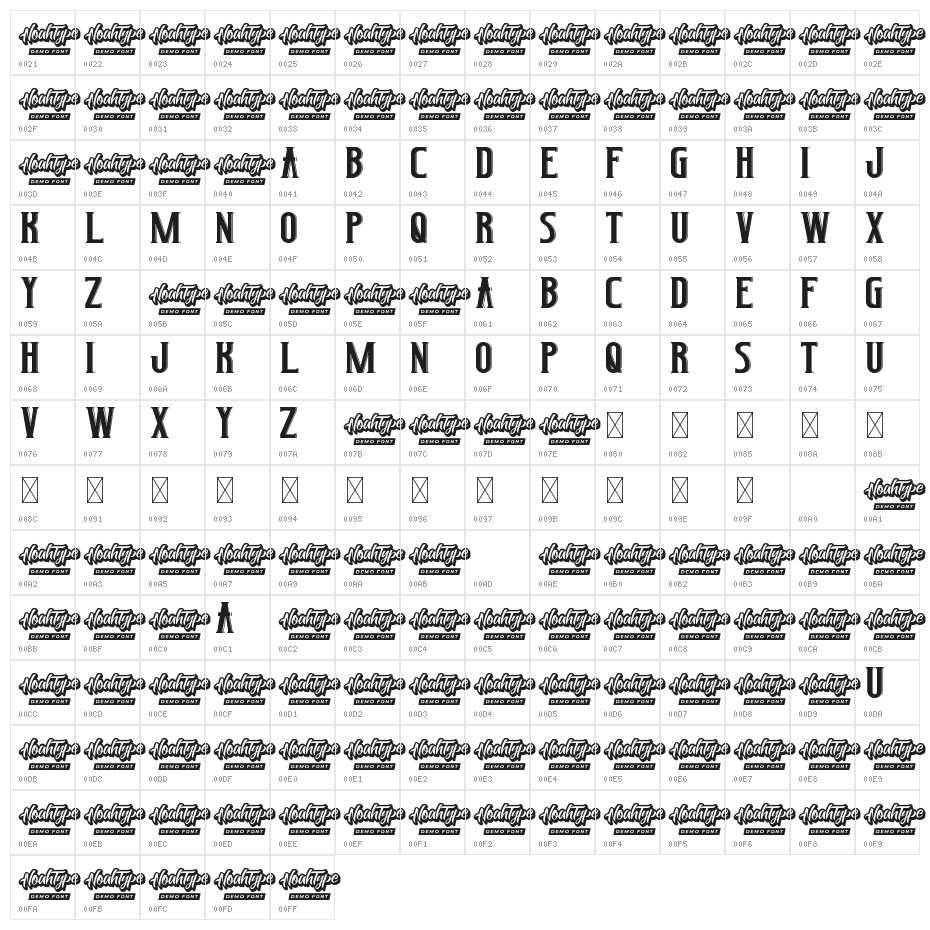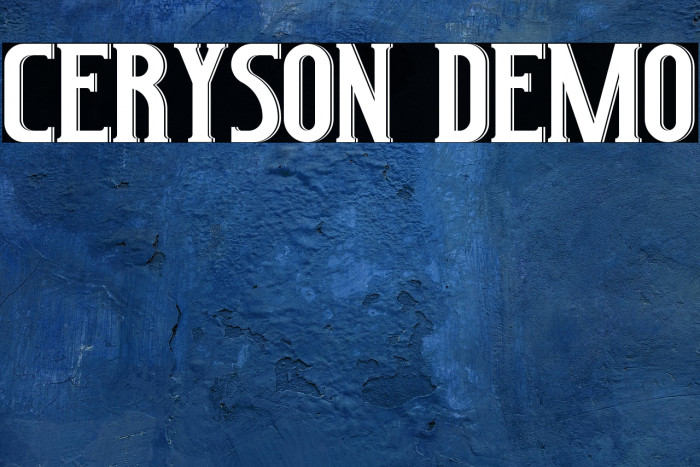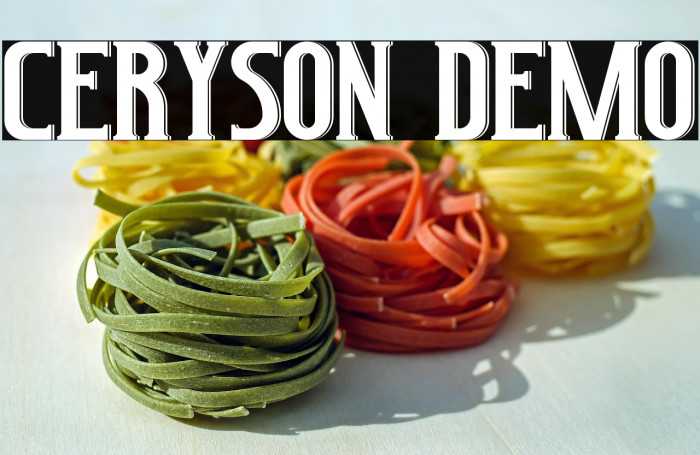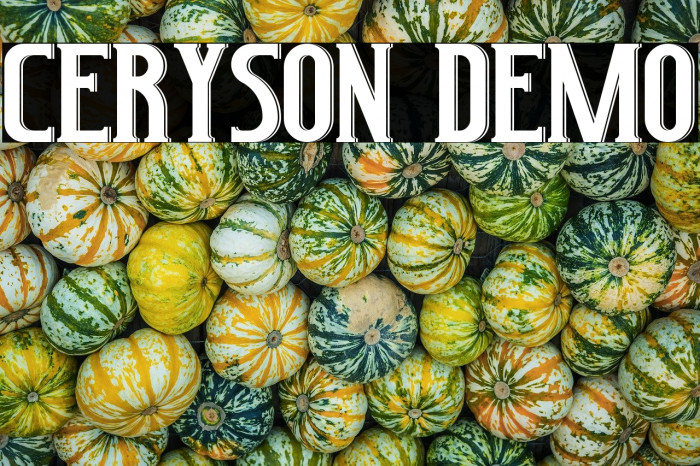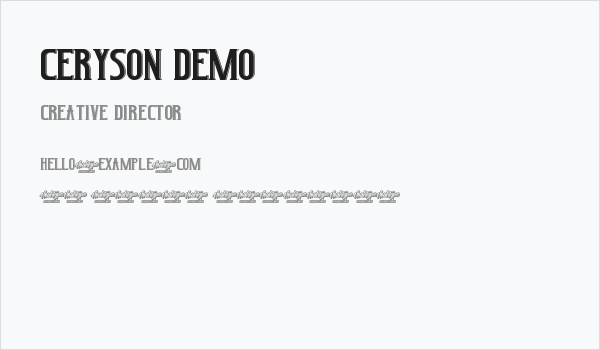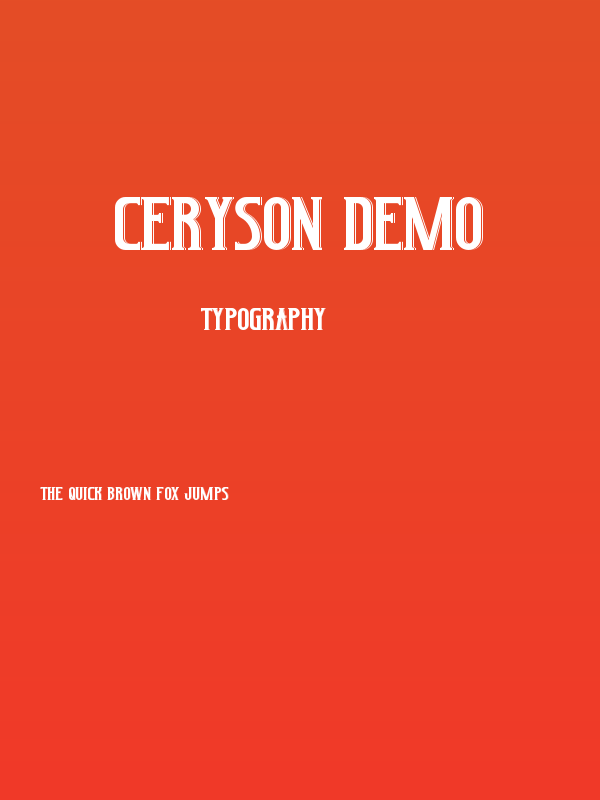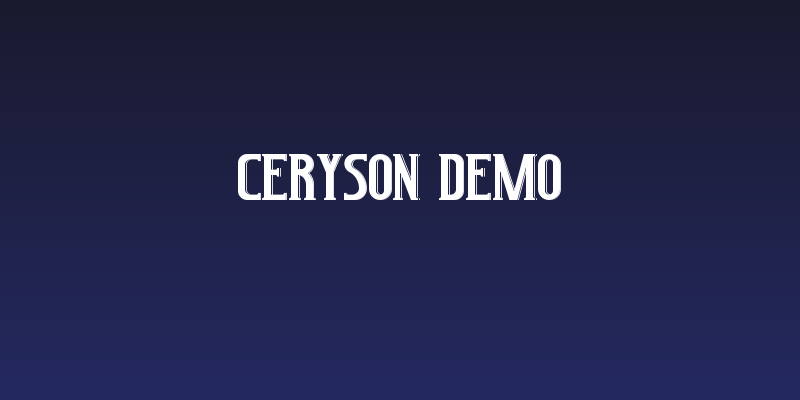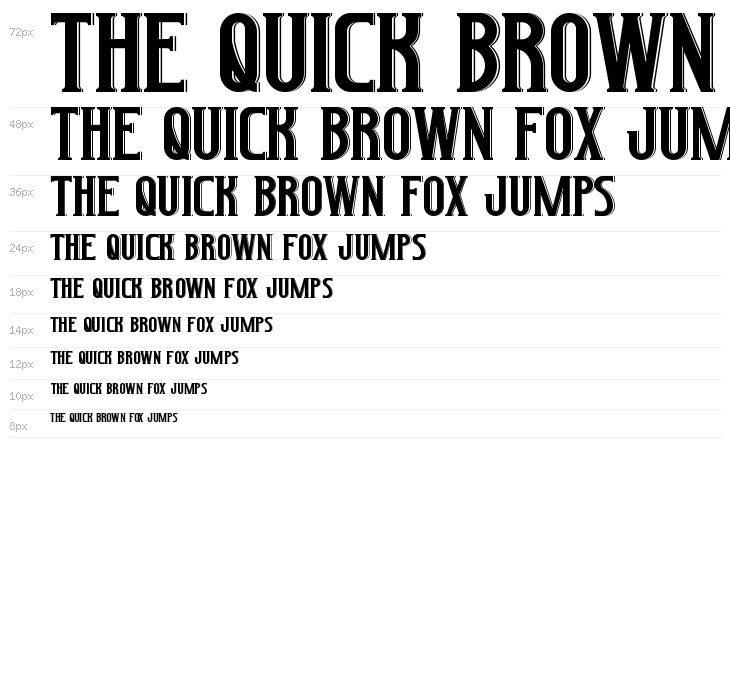
Ceryson Demo Font
Ceryson Demo Description
This font features a bold and striking design with a strong presence, characterized by its tall, narrow letterforms and sharp serifs. The uppercase letters are particularly prominent, with a distinct vertical emphasis that gives them a commanding appearance. The font's design incorporates a blend of traditional serif elements with a modern twist, making it suitable for a variety of creative applications. The overall aesthetic is both elegant and assertive, making it ideal for projects that require a touch of sophistication and impact.
| Proposed Projects | Ideal for branding, headlines, posters, and editorial design where a bold statement is needed. |